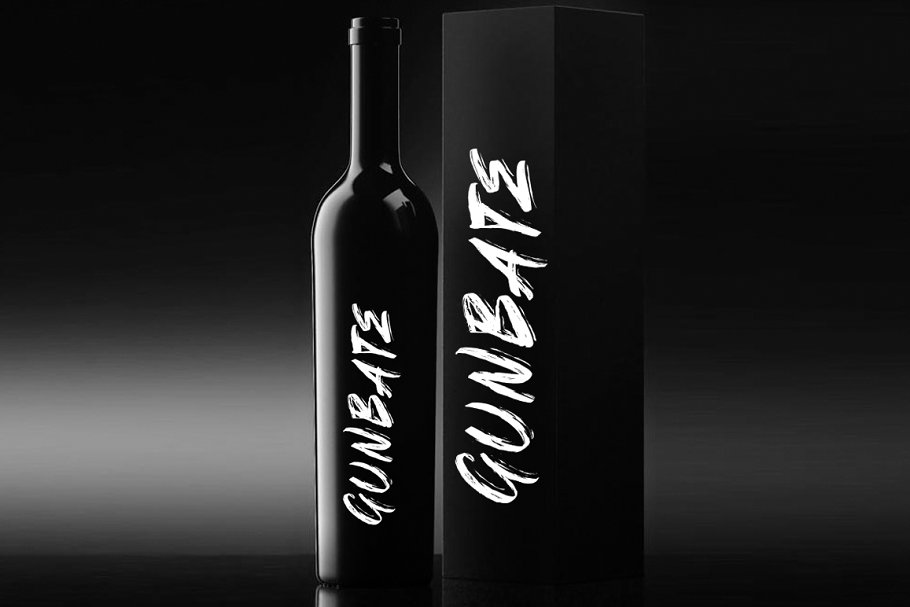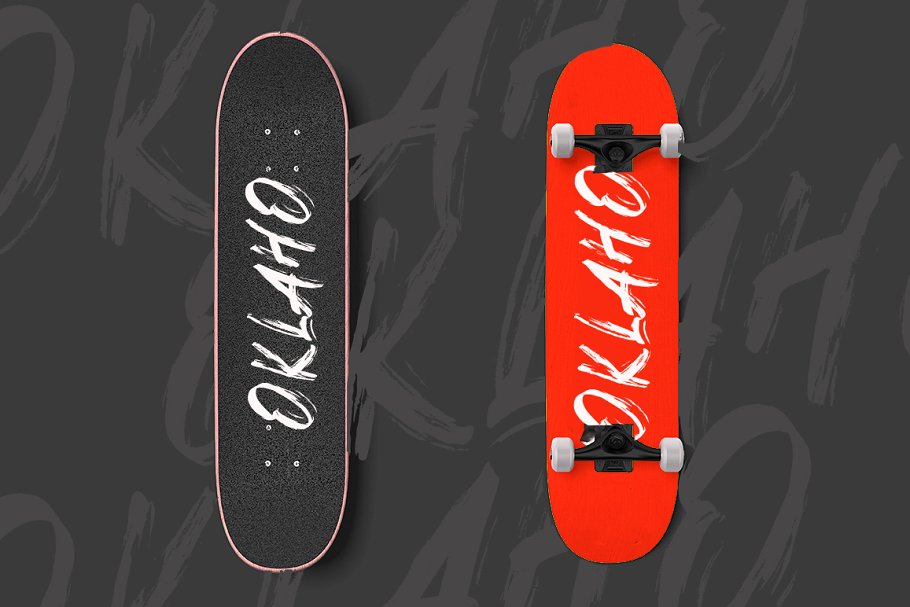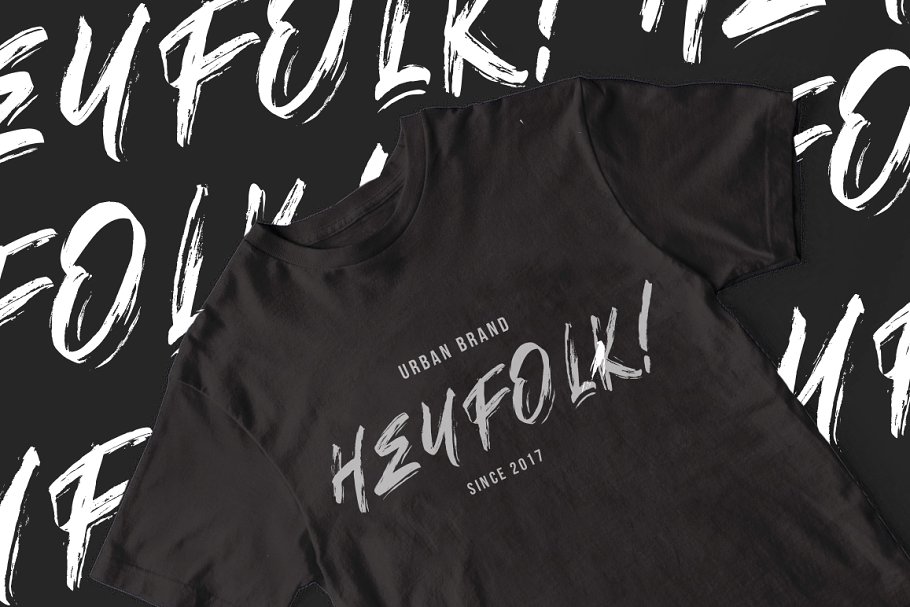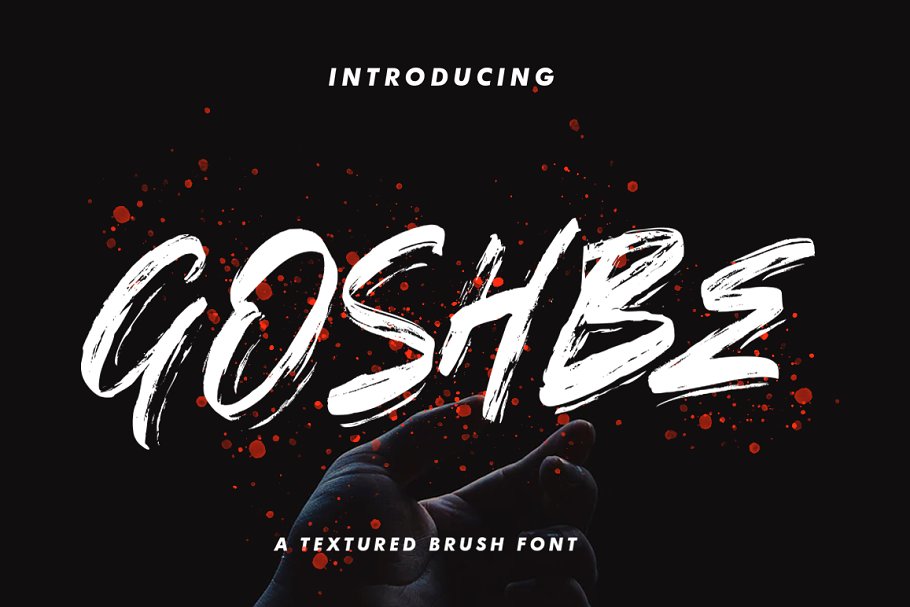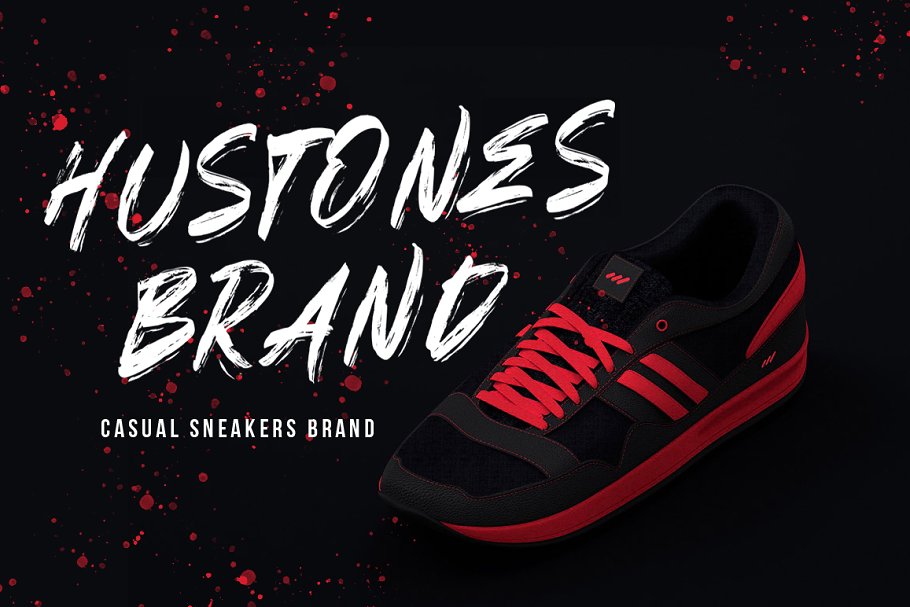
Introducing Streetbrush Font- Goshbe
Goshbe StreetBrush Font is a textured brush, free font for commercial use. A brush font bursting with energy. Extra attention is given to quick strokes and sharp details. This font is guaranteed to deliver an unapologetically fast-paced message to your designs.
Goshbe is ideal for logos, apparel, quotes, product packaging, t-shirt, hoodies, or anything which needs a typographic boost. With extra attention to quick strokes and sharp details,
This StreetBrush Font is made carefully to create the perfect texture and suitable for each of your projects also great for Logotype, Branding Design, Digital Lettering Arts, Poster, Signs, Magazine, Advertising Design, Logo Design, and any vintage design needs.
Features of Goshbe:
Upper + Lowercase Letters
OpenType features
Numbers + Punctuation Accents (Multilingual characters)
(AÀÁÂÃÄÅCÇDÐEÈÉÊËIÌÍÎÏNÑOØÒÓÔÕÖUÙÜÚÛWYÝŸỲŸÆŒßÞ)
Supports Multi-Language: Afrikaans Albanian Dutch English Hungarian Italian Portuguese Spanisch Swedish Zulu